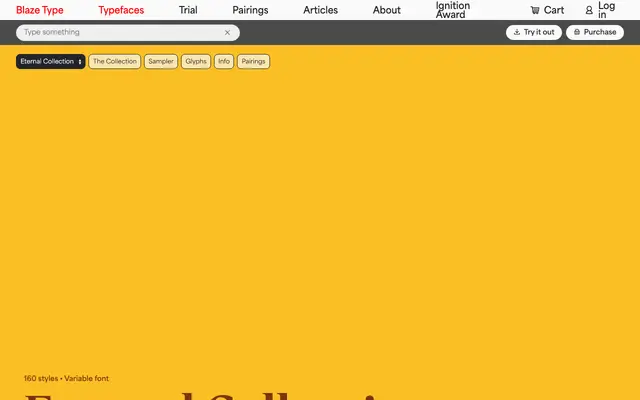
Eternal Collection
A large-scale grotesque sans covering eight widths from Compressed to Wide, each with nine weights and matching italics, totalling 160 styles with variable font support.
Spanning Compressed through to Wide across eight sub-families, the collection gives designers a single coherent grotesque system suited to anything from tight display setting to open editorial composition. Each width carries nine weights from Thin to Black with accompanying italics, and the whole range is available as a variable font. The Normal sub-family adds additional half-step interpolations between weights, extending the palette further for refined typographic control.
The family presents a clean, upright grotesque structure with no visible serif detail across all widths; the breadth of width variants from Compressed to Wide and the neutral letterform rhythm place it firmly in the grotesque sans-serif tradition.